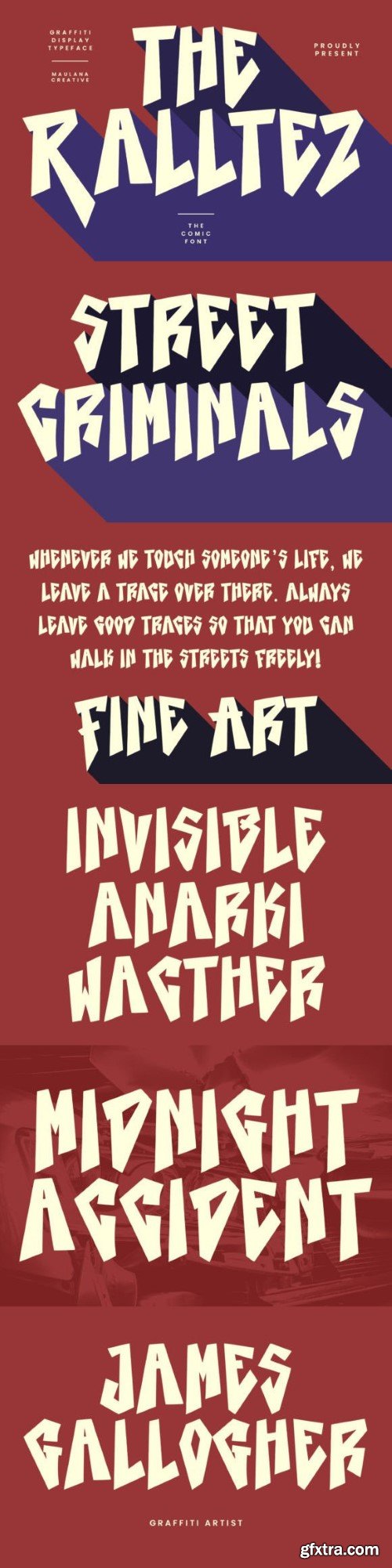
rtltez Font
Ralltez is a vibrant and quirky display font that exudes energy and playfulness. With its irregular letterforms and whimsical curves, Ralltez adds a delightful touch to any design project. Ideal for posters, headlines, and branding materials, this font infuses a sense of fun and creativity into every composition.